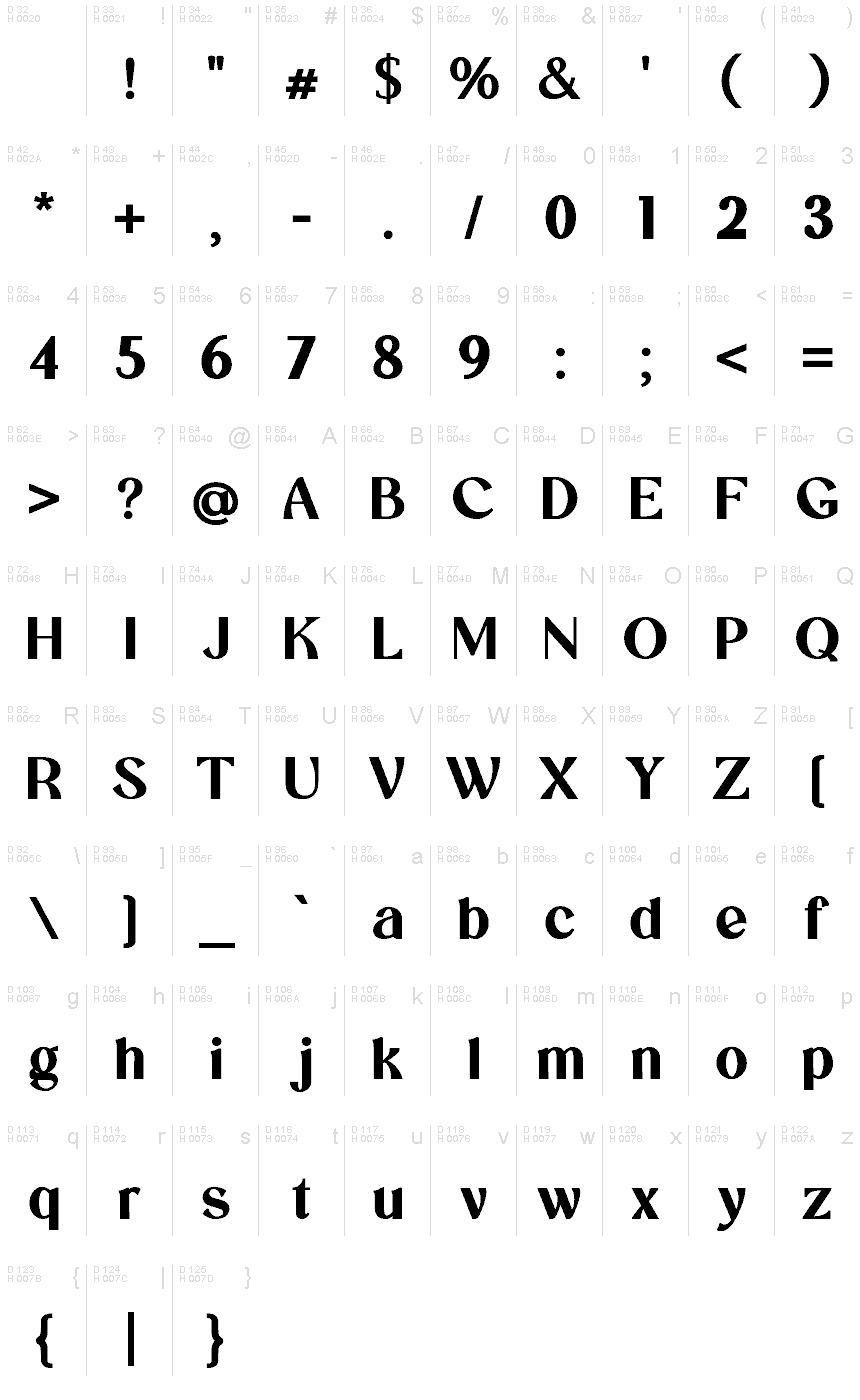
waveruder Bold
Waveruder Bold font by UI Creative is an elegant serif typeface featuring classic, sophisticated attributes. Its flowing curves and refined aesthetic give a graceful feel to any design. The bold style adds a touch of drama and emphasis, making it perfect for capturing attention.